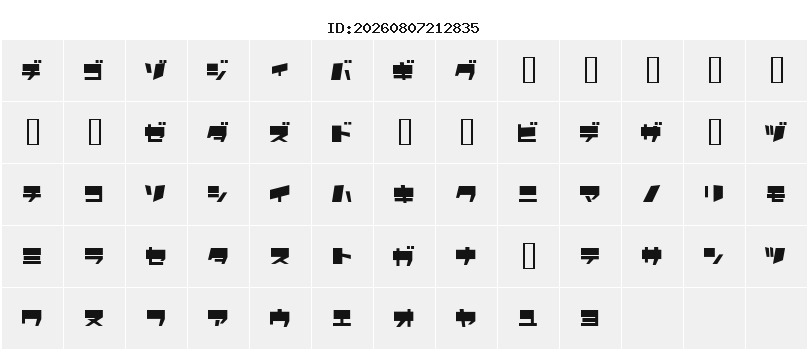
panda Preview
• Font Name: panda
• Font Style: chang
• Font ID: Macromedia Fon￿ographer 4.1J panda chang
• Full Font Name: panda chang
• Version: Macromedia Fon￿ographer 4.1J 98.8.3
• PostScript Name: Pandachang
• Character Count: 85
About panda.ttf
panda.ttf is a modern, elegant sans-serif font designed for ultimate readability and visual harmony. Perfect for branding, headlines, web design, and print materials.